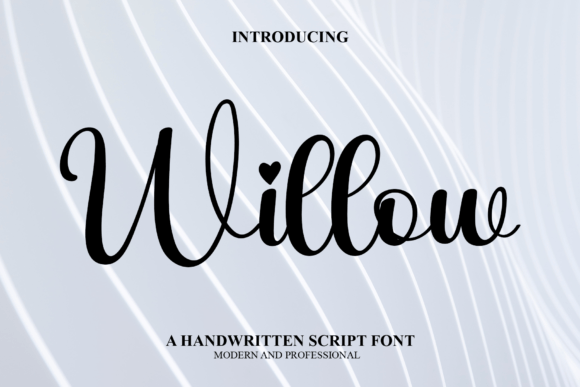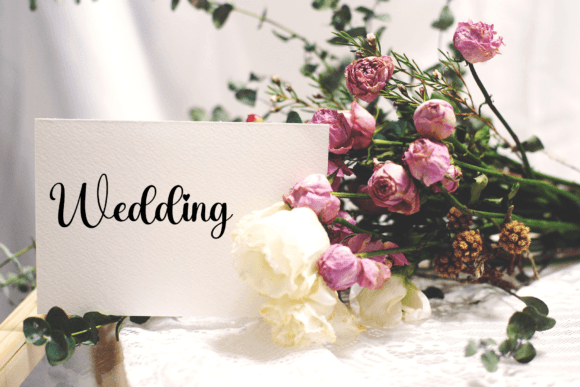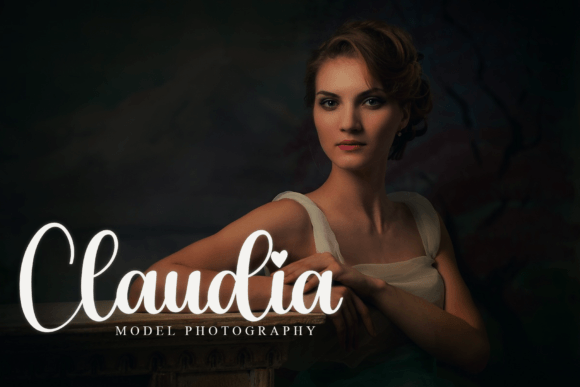
About Willow Font
Willow emerges as a distinctive, round-lettered handwritten font, thoughtfully crafted to bring a unique touch to your cherished projects. With meticulous design and attention to detail, this font is tailored to elevate a variety of creative works, providing versatility for writing titles, invitations, letters, and various other types of products.
The round-lettered aesthetic of Willow imparts a charming and approachable vibe to your designs. Each letter is meticulously shaped, contributing to the overall uniqueness and visual appeal of the font. Willow stands out as an excellent choice for projects seeking a touch of character and individuality.
One of Willow’s notable strengths lies in its adaptability. Whether you’re working on eye-catching titles requiring a distinctive flair, elegant invitations demanding a personal touch, or heartfelt letters needing authenticity, Willow rises to the occasion. Its round-lettered style adds warmth and friendliness, making it suitable for a broad spectrum of creative applications.
As a handwritten font, Willow brings an authentic feel to your text. Its unique style conveys a handcrafted touch, injecting personality and character into your written content. This quality is particularly valuable when you want to establish a genuine connection with your audience or infuse a sense of whimsy and charm into your designs.
Incorporating Willow into your design toolkit opens the door to creative expressions. Its round-lettered design makes it distinctive while ensuring versatility across various design contexts.
In essence, Willow is more than just a font; it’s a carefully crafted creative tool intended to enhance and elevate your projects. Whether you’re aiming for a playful or heartfelt tone, Willow’s round-lettered style brings a unique and captivating touch to your favorite creative endeavors.